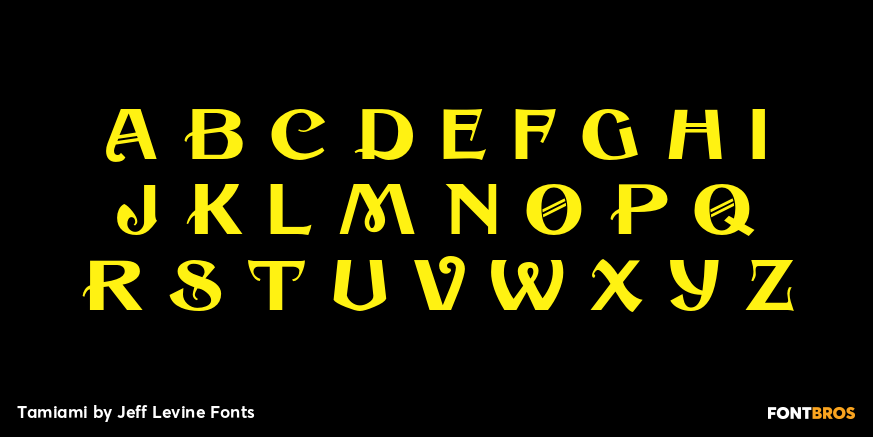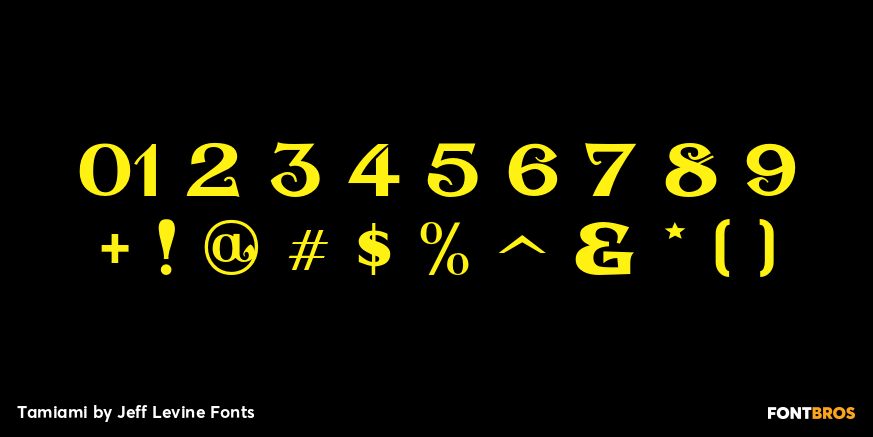
Tamiami
Tamiami JNL is based on a popular old typeface from the early 1900s, best known as "Cuba". 90 miles Northwest of that tropical island is Miami, Florida... and the Tamiami Trail was one of the first connecting routes between the City of Tampa on the West coast of Florida and Miami on the East coast - hence the conjunction "Tamiami".